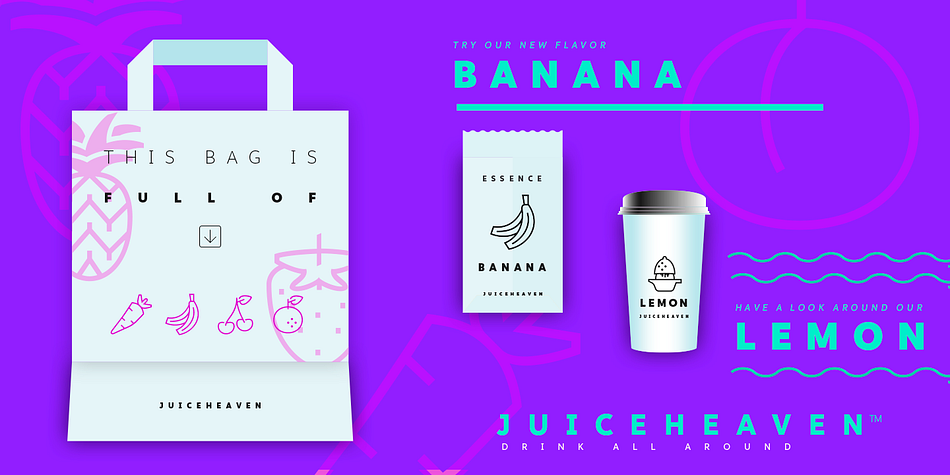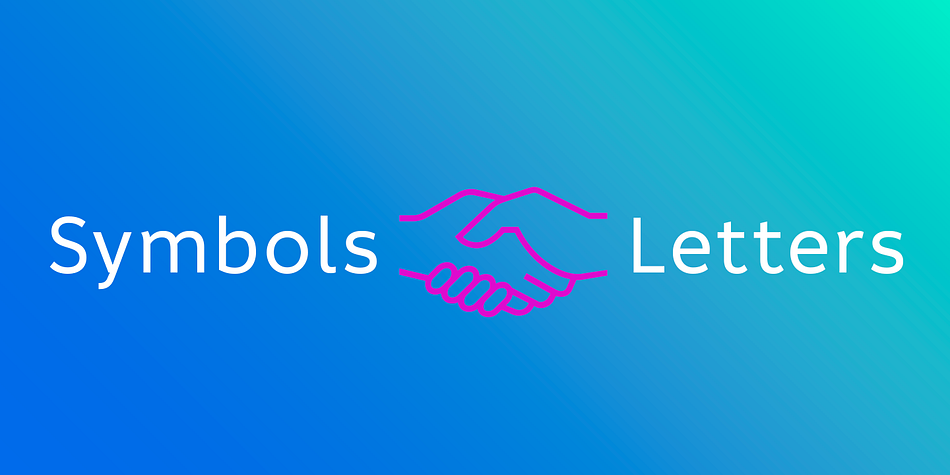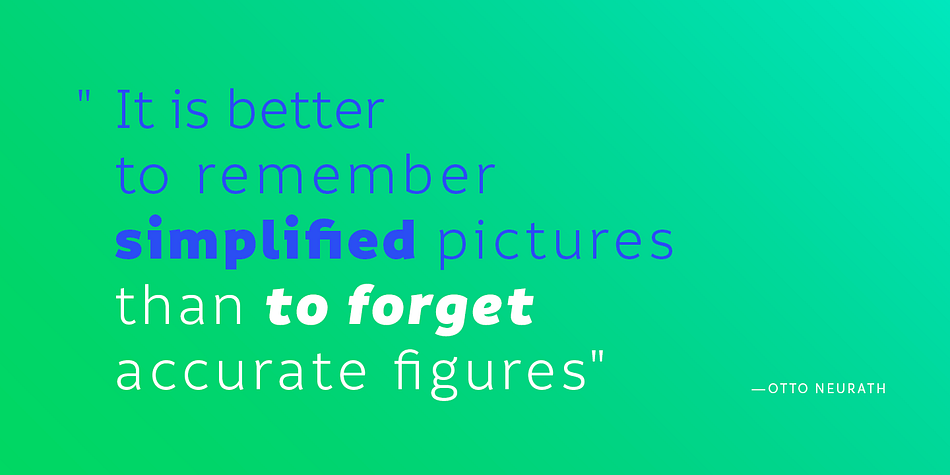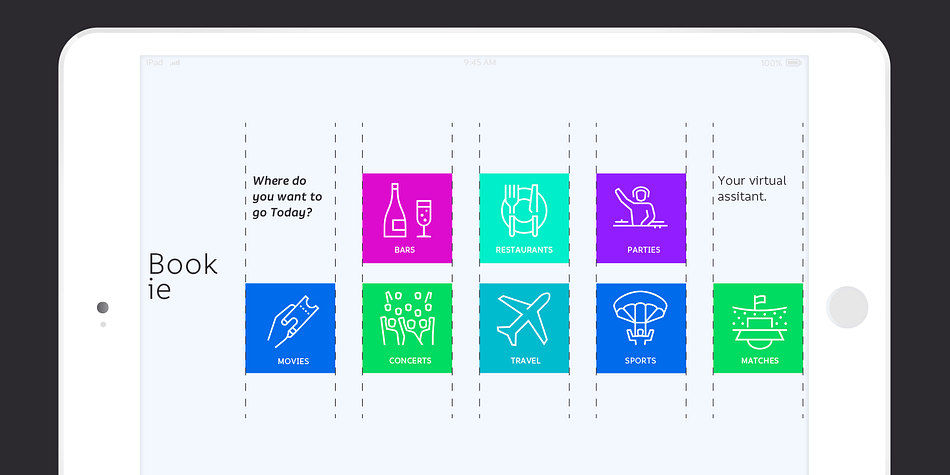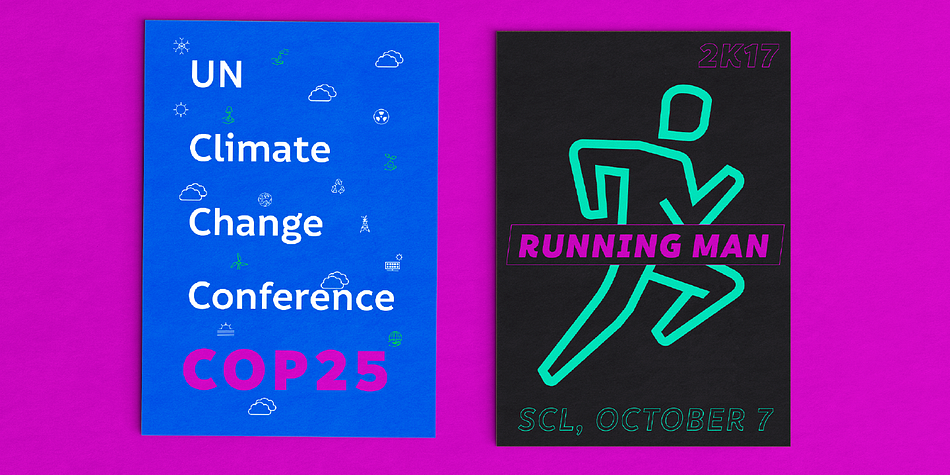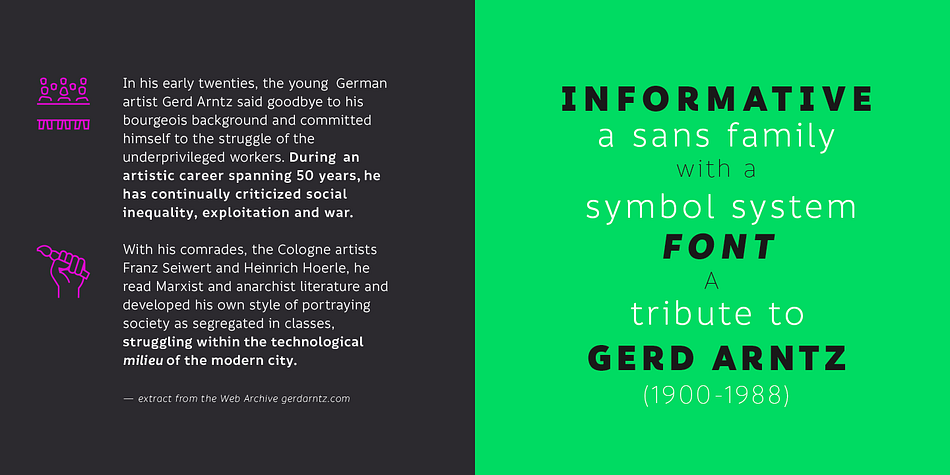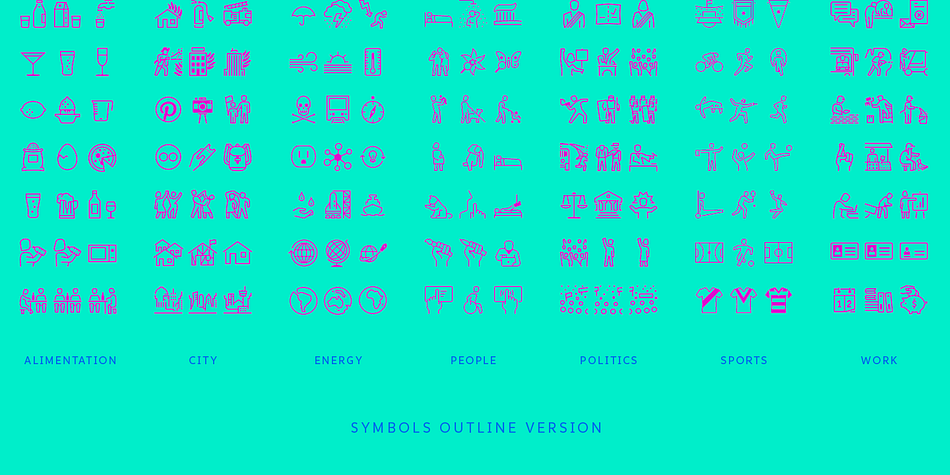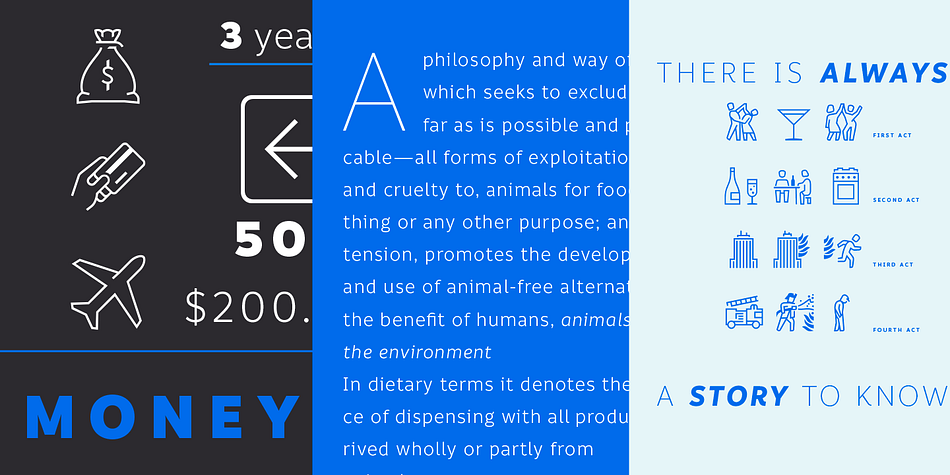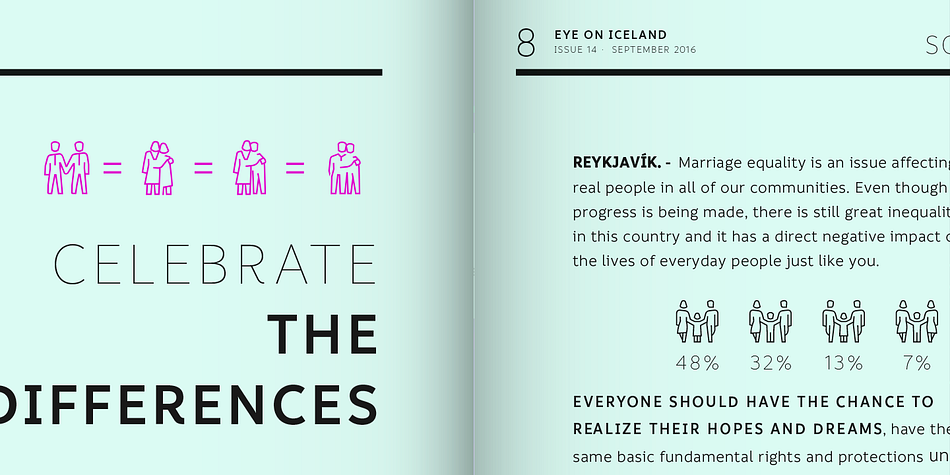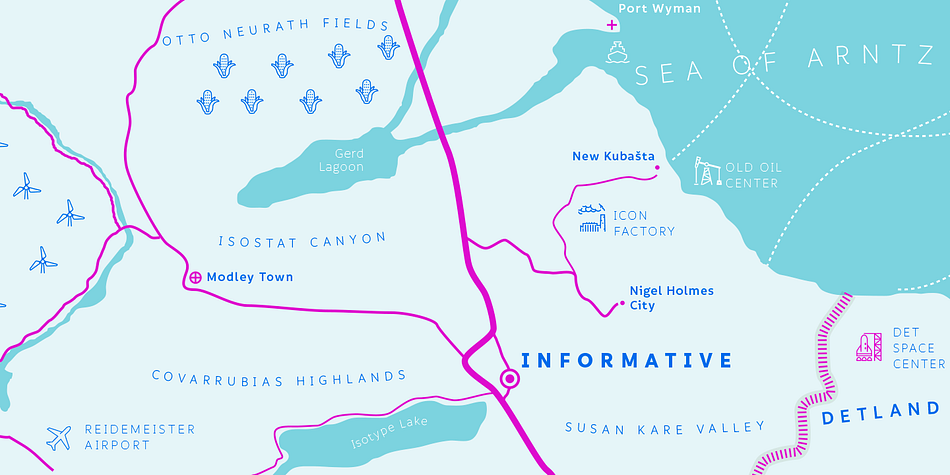
Designed by Sergio Ramírez, César Araya and Latinotype Team, Informative is a dingbat and sans serif font family. This typeface has twenty-eight styles and was published by Latinotype.
Informative is a typeface consisting of a whole family of sans fonts and a collection of thematic pictograms. This combination of two different types of communication reflects the current need for using text and images as means of conveying information in a complementary way.
The family comes with a text version of 7 weights (with matching italics)—Thin, Light, Regular, Medium, SemiBold, Bold and Black, and includes 7 thematic icons sets which allude to elements related to alimentation, city, energy, people, politics, sports and work. Each set contains 88 glyphs and includes both outline and black versions. The text font contains a set of 423 glyphs that support 207 different languages.
Informative is a clean, simple and versatile typeface well-suited for a wide range of graphic design and visual communication projects. This font has especially been designed for infographics, maps and digital applications.